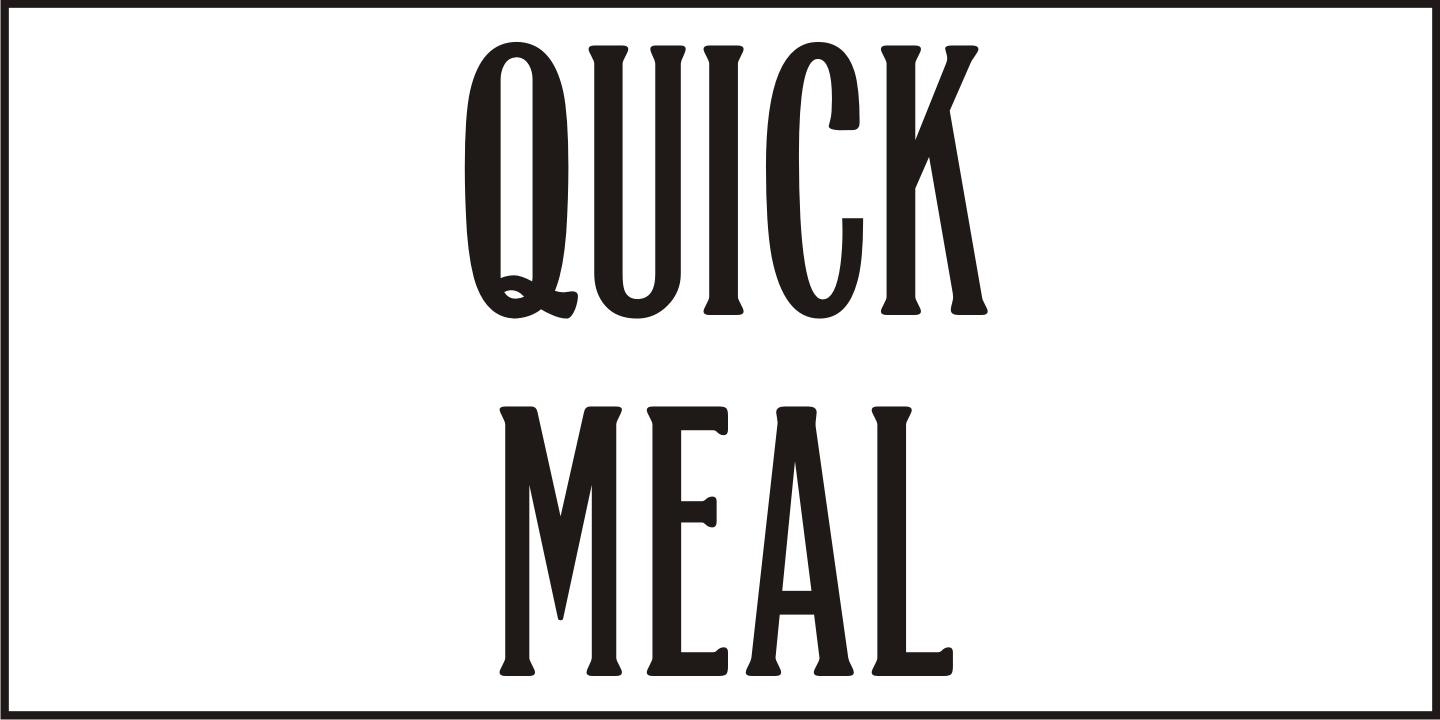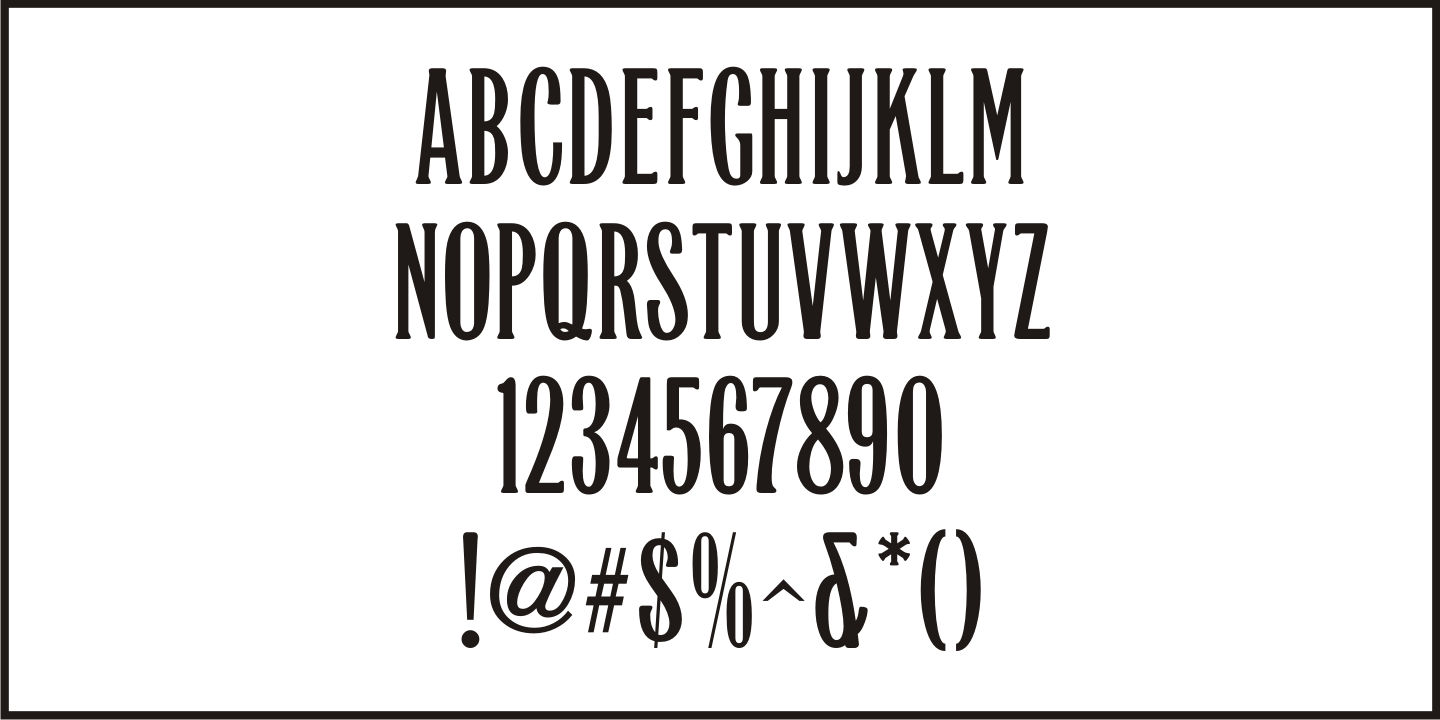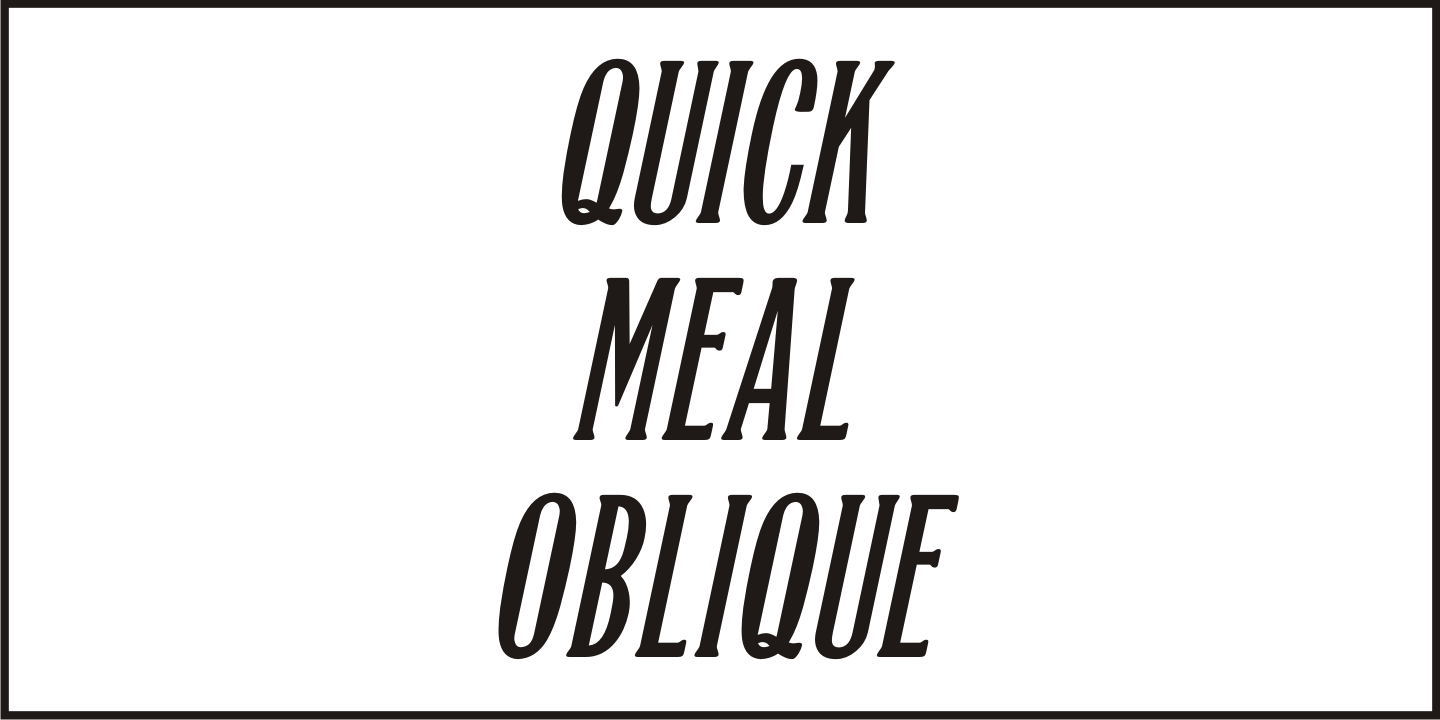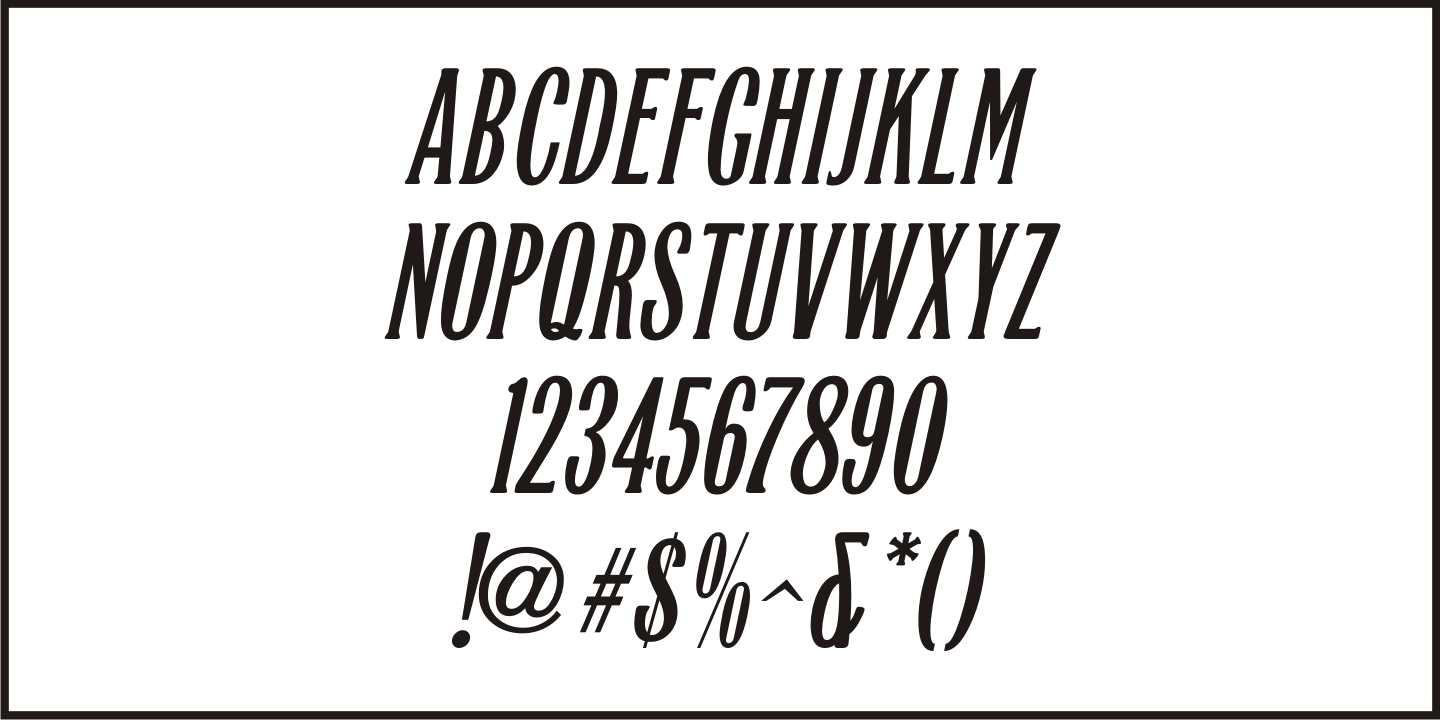
Quick Meal
Quick Meal JNL is a ‘hand lettered’ interpretation of Morris Fuller Benton’s 1905 design “Miehle Extra Condensed Title”, no doubt named for [or on behalf of] the manufacturer of printing and die cutting presses that were used for years within the printing industry.
The type face is available in both regular and oblique versions.
Quick Meal JNL is a pun on the pronunciation of ‘Miehle’.